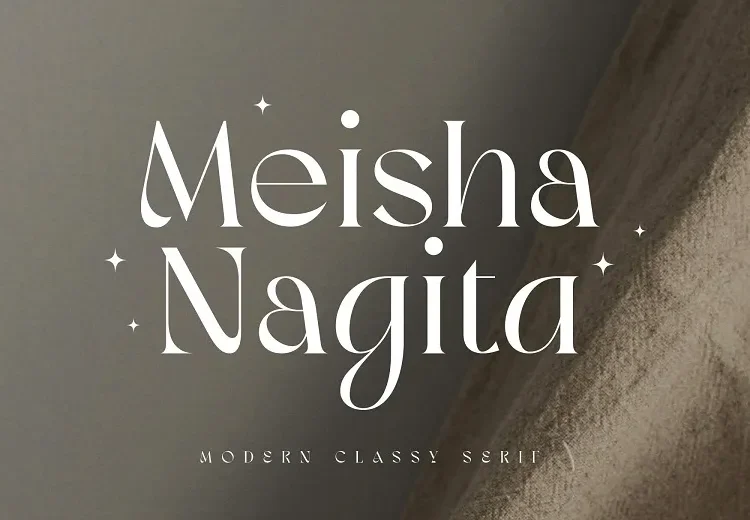
Meisha Nagita Font
Meisha Nagita is a sophisticated and elegant serif font that embodies a modern classic aesthetic, making it an ideal choice for any professional project. The font’s design is a visual delight, characterized by sweet curves and well-formed letter shapes that bring a sense of refinement and style to any text.
This contemporary serif font is versatile and perfectly suited for a wide range of design applications. Whether you’re working on posters, flyers, social media graphics, logos, branding, logotypes, editorials, or magazines, Meisha Nagita adds a touch of elegance and sophistication to your projects. Its timeless appeal and polished appearance make it a valuable asset for designers aiming to elevate their work.